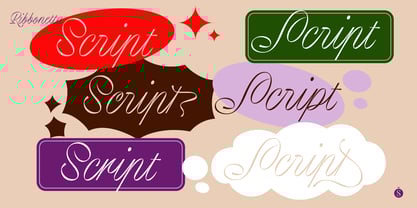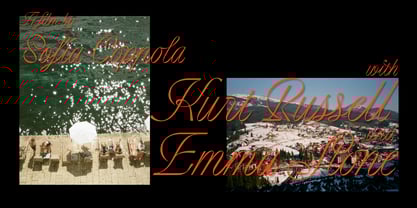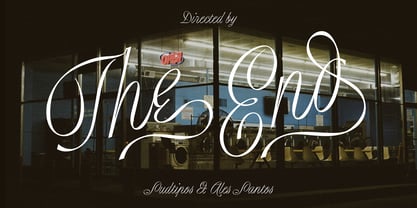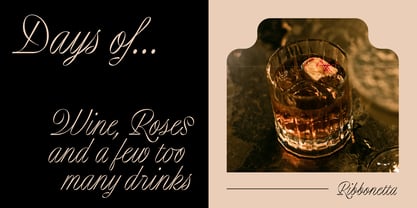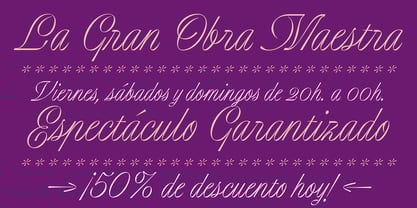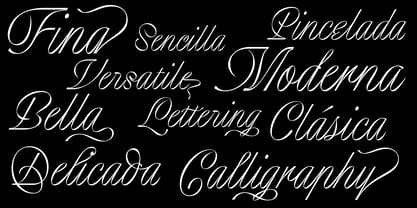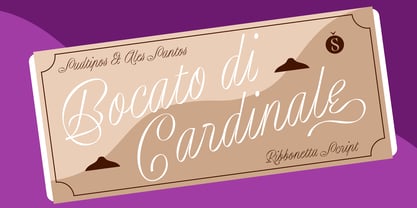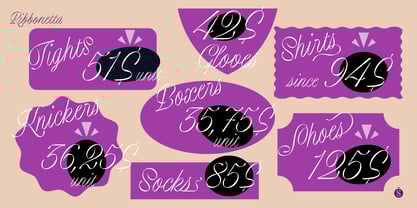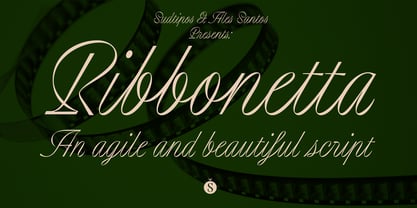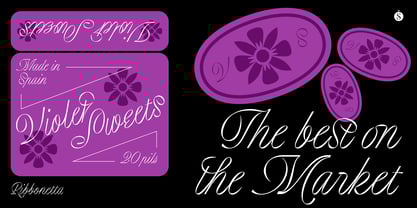
Ribbonetta
by Sudtipos
The Ribbonetta Font Family was designed by Alejandro Paul and published by Sudtipos. Ribbonetta contains 1 styles.
Classic yet modern, agile yet playful—serious, graceful, witty, elegant, and youthful. That’s Ribbonetta, the new typeface by Ales Santos for Sudtipos. Its name comes from the visual effect created by the intersections within the letterforms, reminiscent of ribbons or streamers folding and twisting in motion. Yet the shapes themselves don’t come from that image—they are born from the stroke of a brush imitating a fine-point nib drawing an English or copperplate letter: a soft brush aspiring to be something more refined, elevated, and poised. In other words, when a brush draws fine strokes, it often leaves slightly irregular lines, with a touch of weight at the start. Instead of seeing this as a flaw, this gesture became the foundation of a new style—applying its logic to an entire way of constructing letters, and ultimately, to a typeface. The skeleton of the letters has also been reimagined. Organic calligraphic shapes merge with more rigid, controlled strokes to strike a balance between movement and structure, nature and architecture, seriousness and play. The result is a typeface perfect for headlines, distinctive text, logos, packaging, branding—and countless other uses.